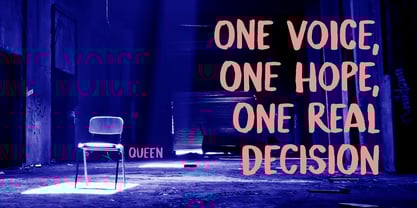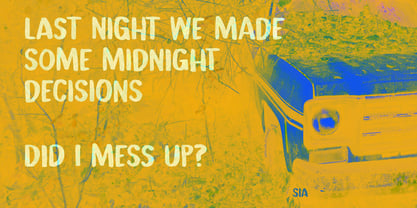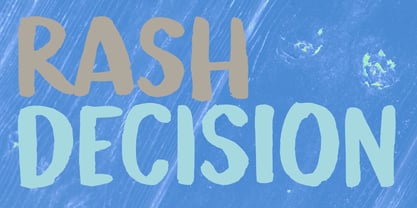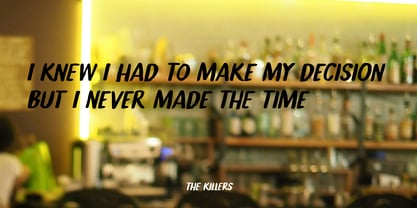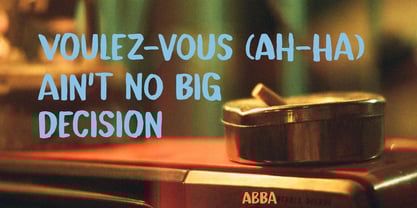
Rash Decision
von Kitchen Table Type Foundry
Die Schriftfamilie Rash Decision wurde von David Kerkhoff entworfen und von Kitchen Table Type Foundry veröffentlicht. Rash Decision enthält 2 Stile und Familienpaketoptionen.
Luckily, I am not one for making rash decisions. I usually line up all the consequences and mull it over for a while, before committing to something. That doesn’t mean I don’t regret some decisions I made, but those I just have to live with.
Rash Decision is a beautiful handmade font. I used my cheap-as-chips Japanese horse hair brushes and Chinese ink to create the glyphs. Rash Decision comes with extensive language support and a set of alternates for the lower case glyphs.
Designer: David Kerkhoff
Foundry: Kitchen Table Type Foundry